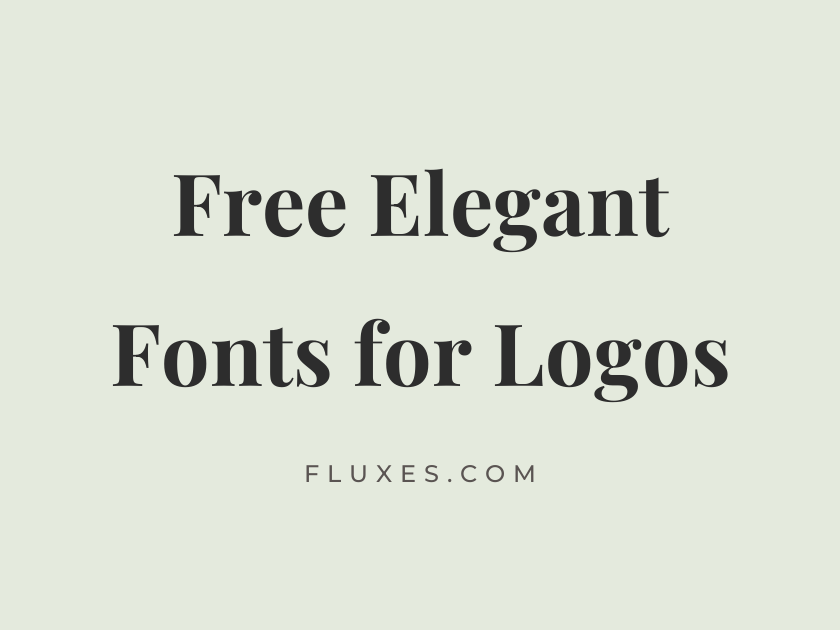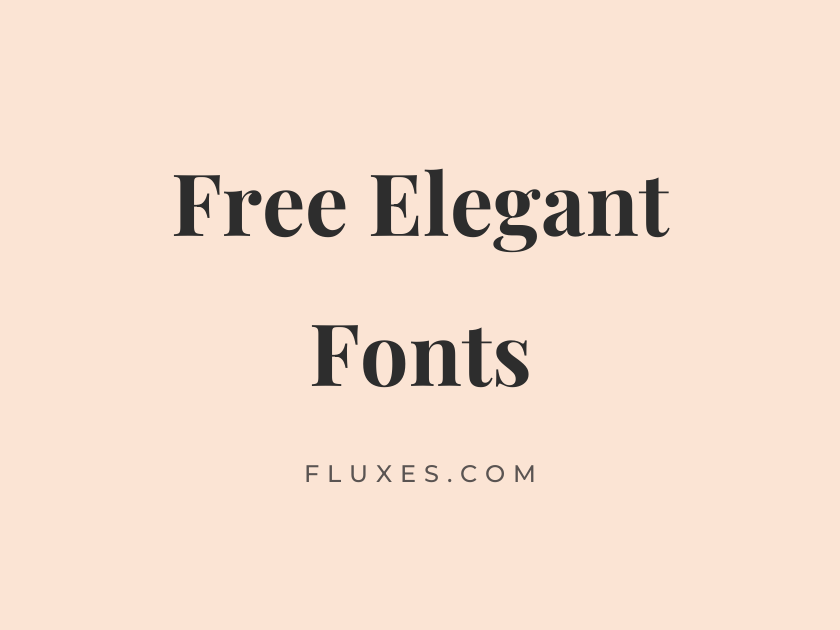
60 Best Free Elegant Fonts for Logos
Elegance in a logo rarely comes from decoration; it comes from restraint, proportion, and the quality of a few well-drawn letters. Whether you are building a wordmark for a bridal atelier, a monogram for a law firm, or a signature-style mark for a beauty line, the right typeface can carry the entire brand feeling before a customer reads a single word of copy. The good news is that free elegant fonts for logos are no longer a compromise: Google Fonts now hosts serif revivals, refined sans-serifs, and calligraphic scripts that rival paid luxury typefaces in polish and detail.
What follows is a wide survey of those options, from high-contrast display serifs built for fashion houses to slender scripts suited to stationery and monograms. Each one is free to download and license for commercial branding work, so you can test them directly against your own logotype before committing.
1. Playfair Display
Timeless Elegance, Crafted for Every Brand
Few free serifs read as instantly upscale as Playfair Display. Its sharp contrast between thick and thin strokes gives it the poise of a fashion magazine masthead, which is exactly why it turns up so often in beauty, jewelry, and editorial logos. Keep an eye on legibility at very small sizes, since those fine hairlines can thin out on a business card or app icon.
2. Cormorant Garamond
Refined Letters for the Modern Atelier
Cormorant Garamond takes the warmth of classic old-style serifs and stretches it into something lighter and more romantic. It suits jewelry, perfume, and bridal branding beautifully, though it wants generous size and space to keep its delicate curves from disappearing.
3. Cormorant
Delicate Type for Grand Statements
The flagship cut in the Cormorant family is even more ornamental than its Garamond sibling, with elongated ascenders and a strong sense of drama. Reserve it for large-format logotypes, headers, or monogram lockups rather than anything that needs to shrink down to a favicon.
4. EB Garamond
Heritage Craftsmanship in Every Letter
Rooted in Claude Garamont’s sixteenth-century punches, EB Garamond gives a brand instant literary credibility. It feels understated and trustworthy rather than flashy, making it a natural fit for publishers, wineries, and old-world hospitality brands that want to project heritage without shouting.
5. Libre Baskerville
Established Since a Refined Century Past
Baskerville has always signaled quality printing, and this web-optimized revival keeps that pedigree intact. It is sturdy enough to double as body text on a website, which makes it a practical choice when the logo and the surrounding copy need to share one elegant voice.
6. Lora
Warm Serif Curves for Boutique Brands
Lora’s brush-influenced curves soften what could otherwise be a rigid serif, giving it a friendly, almost handwritten warmth. Restaurants, bakeries, and lifestyle brands lean on it often because it pairs elegant proportions with real-world readability.
7. Prata
Art Deco Charm for Boutique Wordmarks
There is a distinct Art Deco flavor running through Prata’s tall, narrow capitals, evoking hotel signage from the 1920s. It works especially well as a wordmark for boutiques, salons, or cocktail bars chasing a vintage-glamour identity.
8. Marcellus
Museum-Grade Poise for Cultural Brands
Marcellus carries itself with the restraint of a museum plaque. The letterforms are wide, evenly weighted, and quietly confident, which suits galleries, architecture studios, and any brand that wants gravitas without ornamentation.
9. Cinzel
Inscriptional Capitals for Timeless Crests
Modeled on classical Roman inscriptions, Cinzel is built almost entirely around capital letters, so it earns its keep in monograms, crests, and emblem-style logo marks. It reads as established and permanent, the kind of face that feels carved rather than printed.
10. Bodoni Moda
High-Fashion Contrast for Statement Marks
Bodoni Moda updates the classic Didone contrast for screens, with crisp hairlines set against heavy stems. Fashion and cosmetics brands gravitate toward it for that reason, though extreme thinness at small sizes means it performs best in headlines and hero logotypes rather than tiny print.
11. Fraunces
Soft Old-Style Charm, Full of Character
Fraunces blends old-style serif structure with slightly wonky, hand-finished details, giving it a warmth that feels more artisanal than corporate. Bakeries, ceramicists, and small-batch product brands often reach for it when they want elegance without coldness.
12. Spectral
Literary Elegance for Editorial Brands
Originally designed for on-screen reading, Spectral carries a bookish, editorial calm that suits publishing houses, literary agencies, and content-driven brands. It holds up well at both logo and body-text sizes, which simplifies pairing.
13. Crimson Pro
Classic Book Serif, Understated Sophistication
Crimson Pro draws from old-style book typefaces and keeps that restrained, printed-page character. It is a dependable choice when a brand wants elegance to read as substance rather than decoration.
Test everything at logo scale before falling in love with it on screen. A typeface that looks stunning at 96 points can fall apart printed on a receipt or squeezed into a social media avatar.
There is no shortage of genuinely elegant, genuinely free typefaces to build a logo around, from Roman-inspired capitals to soft, handwritten scripts. The best approach is to shortlist a handful that match your brand’s mood, drop your actual wordmark into each one, and see which letters still feel right once the novelty wears off.